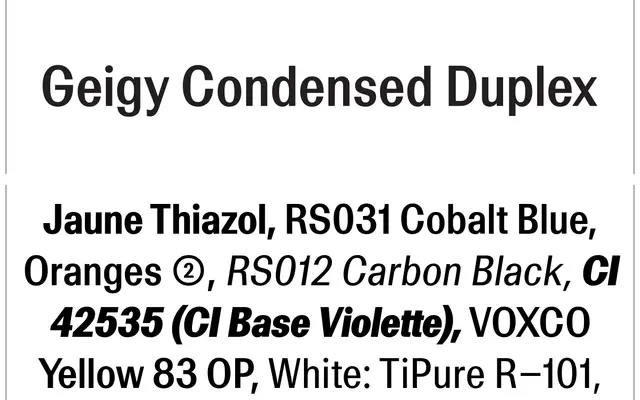
Geigy Cond Duplex
A condensed, duplex grotesque by Robert Huber, developed as part of the LL Geigy family, where every weight shares identical character widths to allow weight switching without reflow.
Designed by Robert Huber as a technical offshoot of LL Geigy, the Cond Duplex variant applies uniwidth spacing across its five weights from Light to Black, so that switching weight never disturbs the layout. The family draws on the graphic language of mid-century Swiss chemical and pharmaceutical industry print, particularly the Geigy company's distinctive typographic output. Italic companions accompany each weight, and the duplex engineering makes it well-suited to variable font applications where text reflow would otherwise be a problem.
A condensed grotesque rooted in the visual language of mid-century Swiss industrial and pharmaceutical typographic culture, with the notable technical property of duplex (uniwidth) spacing across all weights.